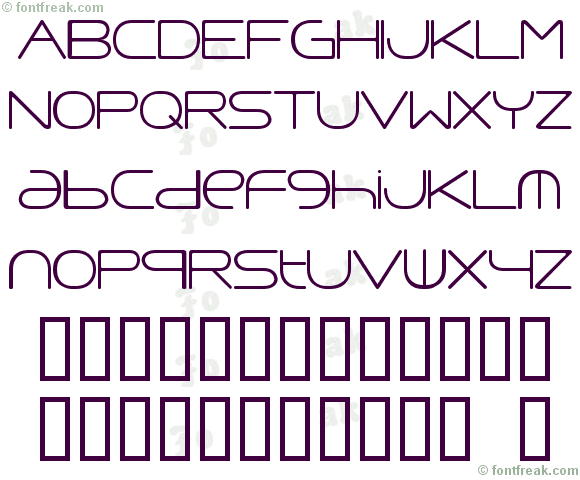
Punavuori is a distinctive display font created by 2theleft Typefaces that showcases a unique blend of modern and playful aesthetics. This freeware font features a sans-serif design characterized by its rounded forms and smooth curves, making it an eye-catching choice for various creative projects. The stroke weight is consistent, providing a harmonious visual flow, while the ample spacing between characters enhances readability. The overall design exudes a contemporary charm, suitable for both casual and formal applications.
This font is perfect for a range of use cases, including vibrant wedding invitations that require a touch of elegance, striking movie posters that demand attention, and engaging restaurant menus that entice customers with their stylish presentation. Additionally, Punavuori can be effectively utilized in branding projects for small businesses looking to establish a unique identity, as well as in promotional materials for events that aim to evoke a sense of fun and creativity.
Targeting graphic designers, small business owners, and content creators, Punavuori offers a versatile option for those seeking to elevate their visual communication. Its modern flair makes it ideal for both digital and print media, ensuring that projects stand out in a crowded market.
What sets the Punavuori font apart is its ability to balance playfulness with sophistication. This font allows for creativity while maintaining clarity, making it a reliable choice for various applications. The Punavuori font free download opens up opportunities for users to experiment with this unique typeface without any financial commitment, making it accessible for budding designers and established professionals alike. Embrace the charm of Punavuori and watch your projects come to life with its distinct character and style.